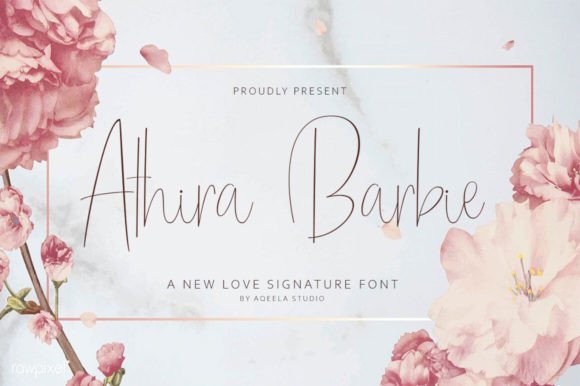
The Magical World of Athira Barbie Font
A Personal Review of Athira Barbie Font
- ✨ Elegant and Flowing Script: Athira Barbie is a handwritten font that exudes elegance. Its flowing strokes and beautiful ligatures make it perfect for projects that require a touch of sophistication.
- ✅ Timeless Style: This font has a timeless quality to it. It doesn’t lean into trendy designs, making it versatile for various projects, from branding to wedding invitations.
- 🌈 Versatility: Whether you’re working on digital content or print materials, Athira Barbie adapts beautifully, maintaining its charm across different mediums.
While Athira Barbie is an amazing font, there are a few things to keep in mind: 🤔
- ⚠️ Legibility at Small Sizes: Like many script fonts, Athira Barbie can get a bit tricky to read at very small sizes. It’s best used at larger sizes where its beauty can truly shine.
- ⚠️ Glyphs and Alternates: While it has a range of OpenType features, including glyphs and stylistic alternates, mastering these can take a bit of time. But trust me, it’s worth the effort! 💪
The Story Behind Athira Barbie Font
The Athira Barbie font was crafted with love by a designer who wanted to bottle up the elegance of handwritten scripts in a digital format. Inspired by classic calligraphy and modern trends, Athira Barbie brings a touch of class to any project. While the exact story behind its creation might be shrouded in mystery, its impact on the design community is clear: it’s a beloved font for those seeking beauty and versatility.
Q: What type of projects is Athira Barbie best suited for?
Athira Barbie shines in projects that require elegance and a personal touch. This includes wedding invitations, luxury branding, fashion blogs, and high-end advertising.
Q: Does Athira Barbie support OpenType features?
Yes, Athira Barbie supports OpenType features, including ligatures, stylistic alternates, and glyphs. These features allow for a high level of customization and creativity in your designs.
Q: Is Athira Barbie difficult to read at small sizes?
Like many script fonts, Athira Barbie can be challenging to read at very small sizes. For optimal results, use it at larger sizes where its elegance and flow can be fully appreciated.